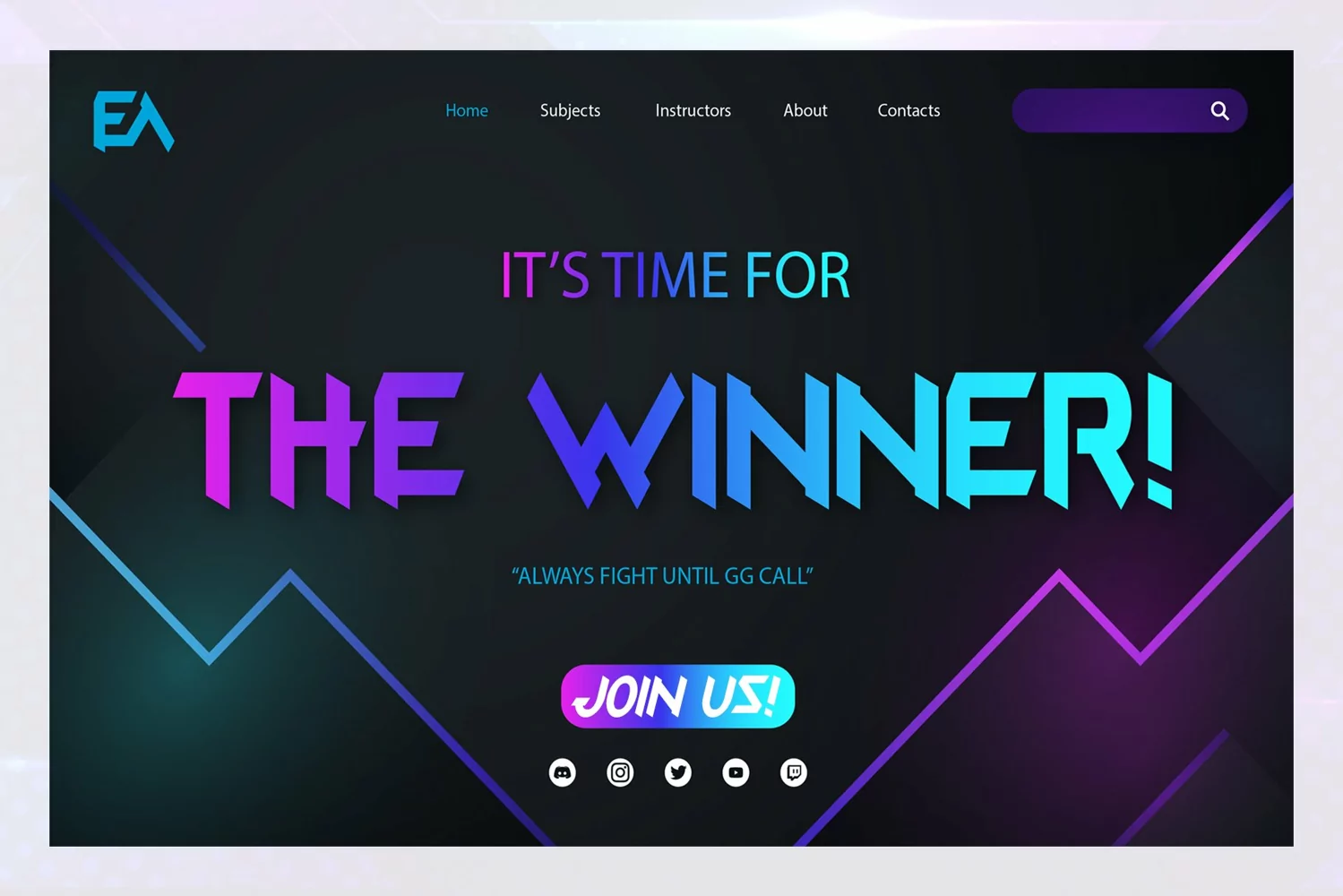
Realtime Gamer is a cool, bold and sharp display font. Best on Gaming Themes and can be for headline with manly and strong themes. No matter the topic, this font will be an incredibly asset to your fonts’ library, as it has the potential to elevate any creation.